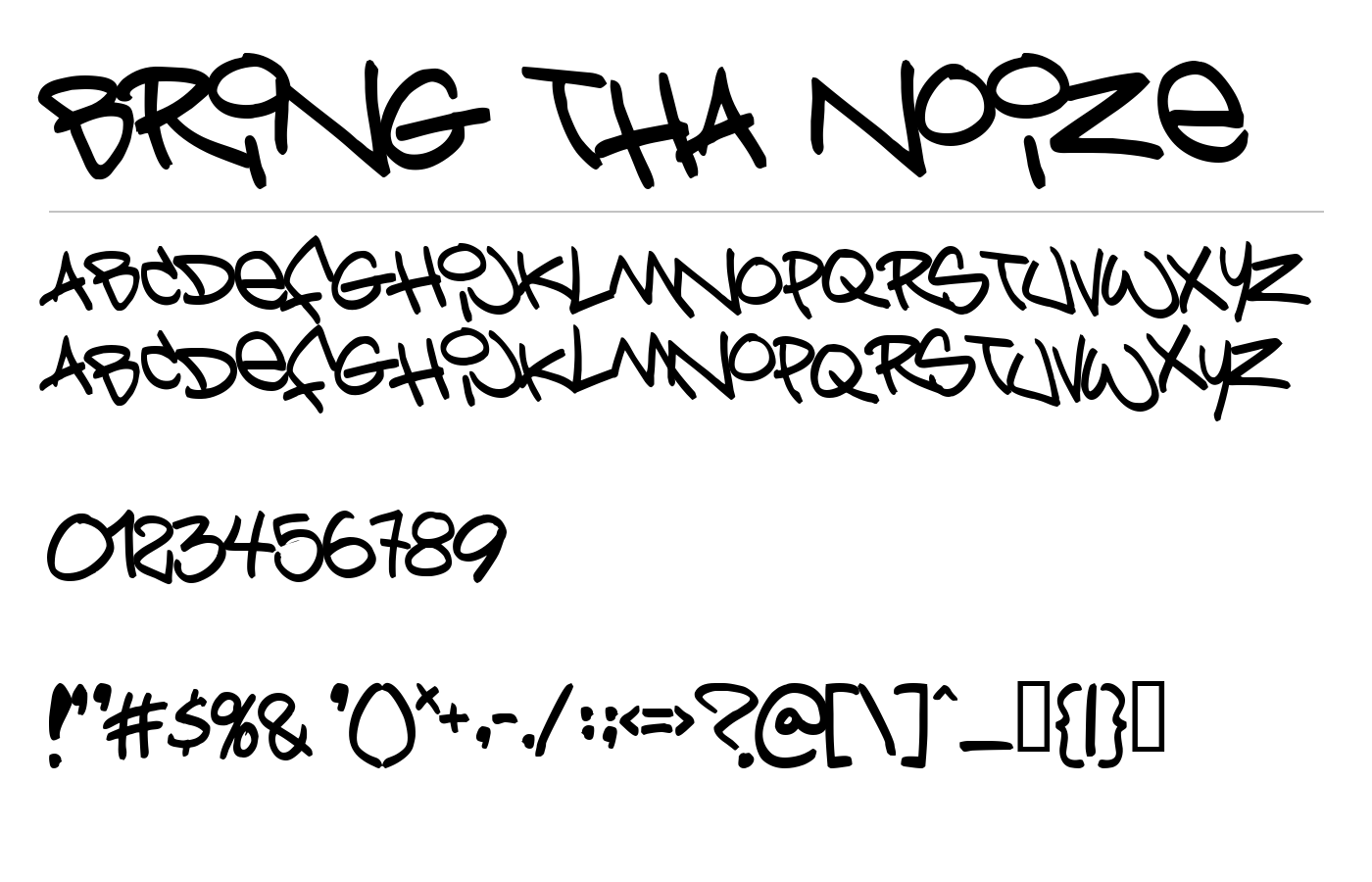
Bring tha noize is a bold, expressive handwritten font with a playful, urban graffiti style. Its energetic strokes and irregular letter shapes create a dynamic, casual feel that’s perfect for youthful, street-inspired designs. This font works well for eye-catching logos, posters, and branding that seek to convey attitude and creativity.
Bring tha noize Font